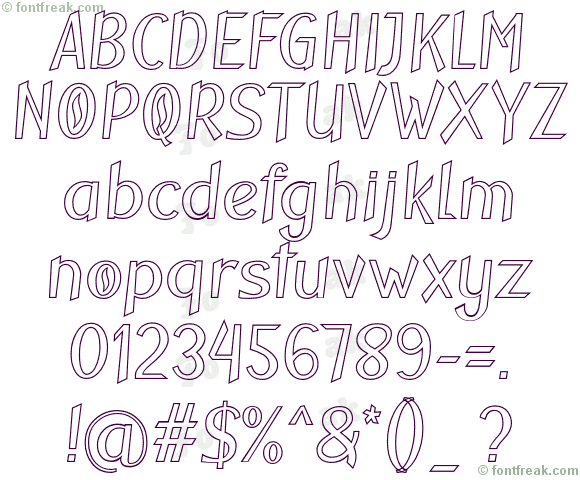
Ataro
AtaroOutline
About Ataro
Ataro is a striking display font designed by Situjuh Nazara, characterized by its bold and contemporary style. This sans-serif typeface features clean lines and a balanced stroke weight, creating a modern aesthetic that is both approachable and elegant. The font showcases a unique outline effect that adds depth and dimension, making it ideal for projects that require a touch of creativity. The spacing between characters is thoughtfully designed, enhancing readability while maintaining an artistic flair.
Ataro is versatile and can be effectively used in a variety of design contexts. It works wonderfully for eye-catching movie posters that demand attention, as well as vibrant restaurant menus that aim to impress diners with a unique visual identity. Graphic designers can utilize Ataro for branding projects, ensuring logos stand out in a crowded market. Additionally, this font is perfect for wedding invitations, where its modern yet elegant style can set the tone for a memorable event. Content creators will find Ataro font free download an excellent asset for social media graphics, enabling them to create engaging posts that resonate with their audience.
The target audience for Ataro includes graphic designers, small business owners, and content creators who seek a distinctive font that adds character to their projects. Its modern design appeals to those looking to make a statement, whether in digital or print formats.
What sets Ataro apart is its balance between boldness and sophistication. The unique outline feature not only captures attention but also offers flexibility in design, allowing for creative applications across various media. With its contemporary style and versatility, Ataro is a font that can elevate any project, making it a valuable addition to any designer’s toolkit.